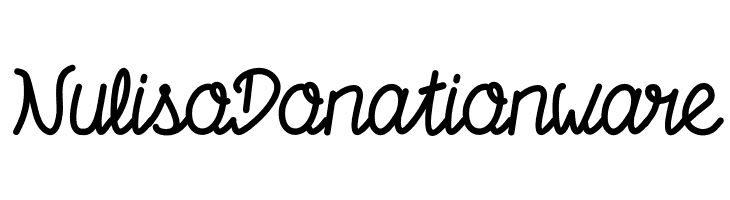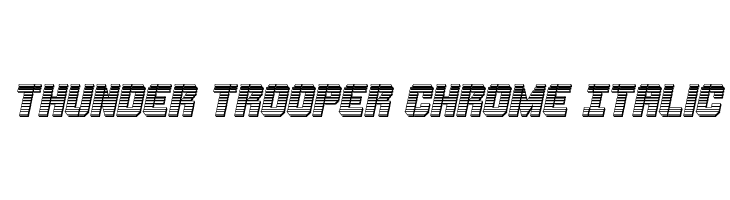
A bold, 3D block font with a futuristic and dynamic style.
A bold, playful font with a quirky, hand-drawn style.
Handwritten cursive script font.
A decorative font with Christmas-themed illustrations, perfect for festive projects.
A playful, artistic handwritten font with fluid, connected letterforms.
A playful, rounded font ideal for children's materials.
A playful, bold font with rounded, hand-drawn letterforms.
A futuristic, geometric font with a digital and sci-fi aesthetic.
A bold, condensed, italic font with high contrast and tight spacing.
An elegant, flowing script font with a natural handwriting style.
设计师偏爱 Thunder Trooper 3D, Darkflame, South America, KR Christmas Dings 2004 Three and Asterikats Free Regular,因为其造型干净、适用范围广—— 从品牌识别到落地页、海报都能胜任。